Great graphic design is powered by great font selection. But picking the perfect fonts is a challenge most people. Luckily, Canva has made adding great fonts to your designs much easier. In this tutorial, our team of design experts will cover the best Canva fonts. More specifically, we will explore 100 of the top Canva fonts available to designers using Canva!
What Makes a Font Popular with Canva Users?
Popular fonts tend to have a combination of aesthetic and functional characteristics that make them widely used and appreciated. Here are some common characteristics of fonts that are popular among Canva’s 100 million users:
- Legibility: A popular font should be easy to read and distinguish, with clear letterforms and ample space between characters.
- Versatility: Popular fonts are often versatile, meaning they can be used in various contexts, such as headlines, body text, or logo design, and across different media like print, digital, or signage.
- Timelessness: Many popular fonts have a timeless quality, which means they remain appealing and relevant across changing design trends and periods.
- Distinct personality: A popular font may have a distinct personality, conveying a specific mood, style, or tone that resonates with a wide audience. This could be due to the font’s history, design elements, or cultural associations.
- Consistency: A popular font typically has a consistent design across its character set, ensuring that it maintains its overall visual appearance and readability regardless of the specific letters or characters used.
- Wide range of weights and styles: Popular fonts often come with a variety of weights (e.g., light, regular, bold) and styles (e.g., italic, condensed), allowing designers to choose the most appropriate version for their project.
Best Fonts for Signs in Canva
Below is a list of our top 100 Canva fonts (in no particular order):
1. Nice
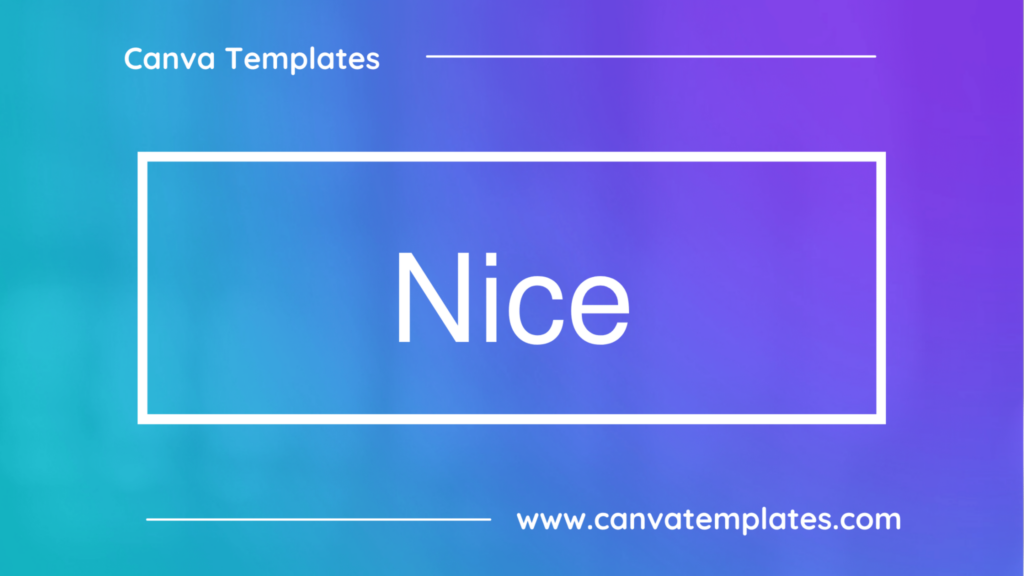
Nice is a simple and modern sans-serif font that’s clean and easy to read. It’s versatile enough to be used for a variety of projects, and its minimalist style makes it a great choice for a wide range of designs.
2. Holiday
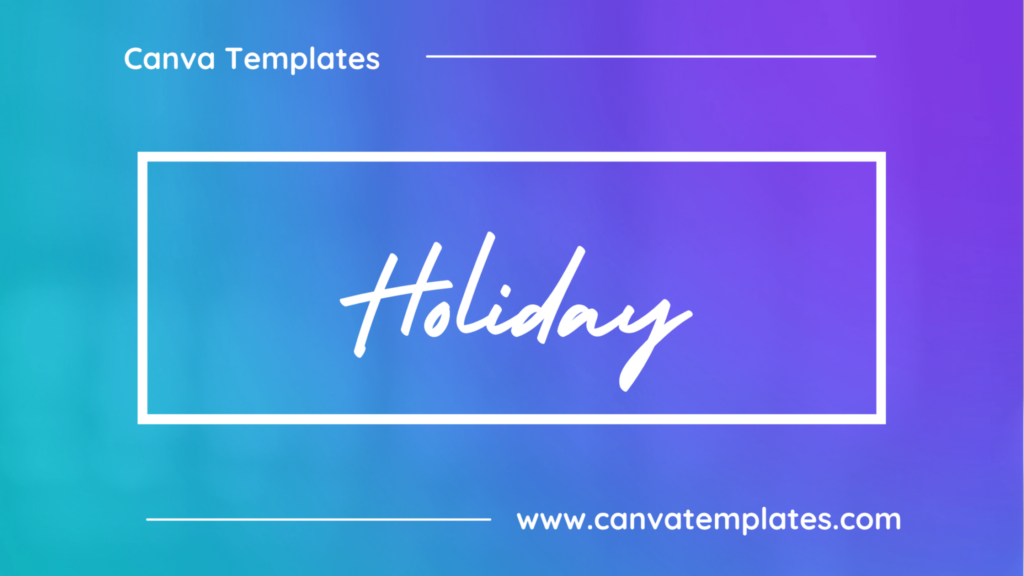
Holiday is a festive and playful font that’s perfect for adding a touch of cheer to any design. It features a bold, rounded style and lively curves that create a sense of joy and celebration.
3. Blanka
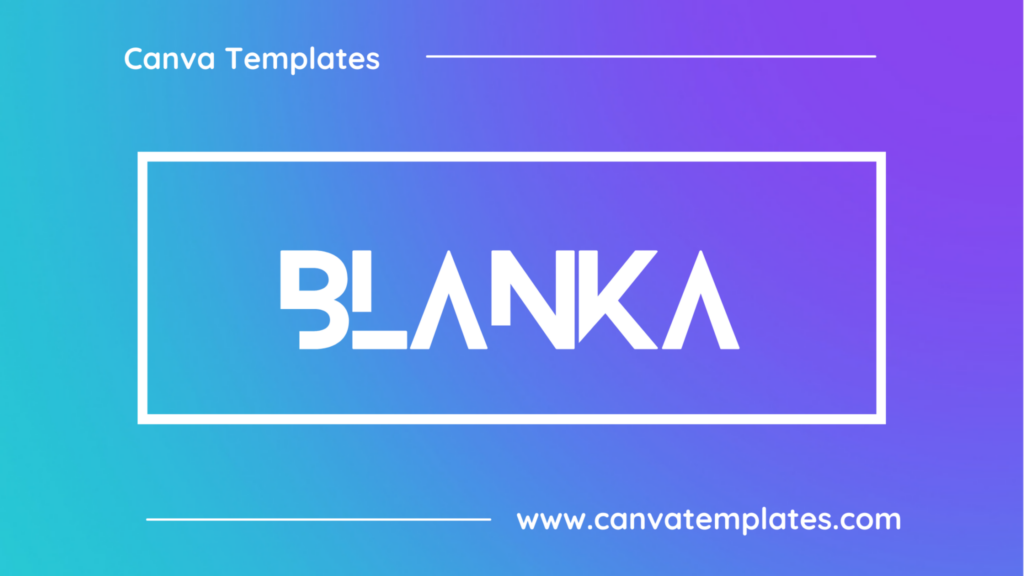
Blanka is a clean and modern sans-serif font with a distinctive geometric design. It features a tall and narrow appearance, making it a great choice for designs that need to convey a sense of sophistication or professionalism.
4. Dream Avenue
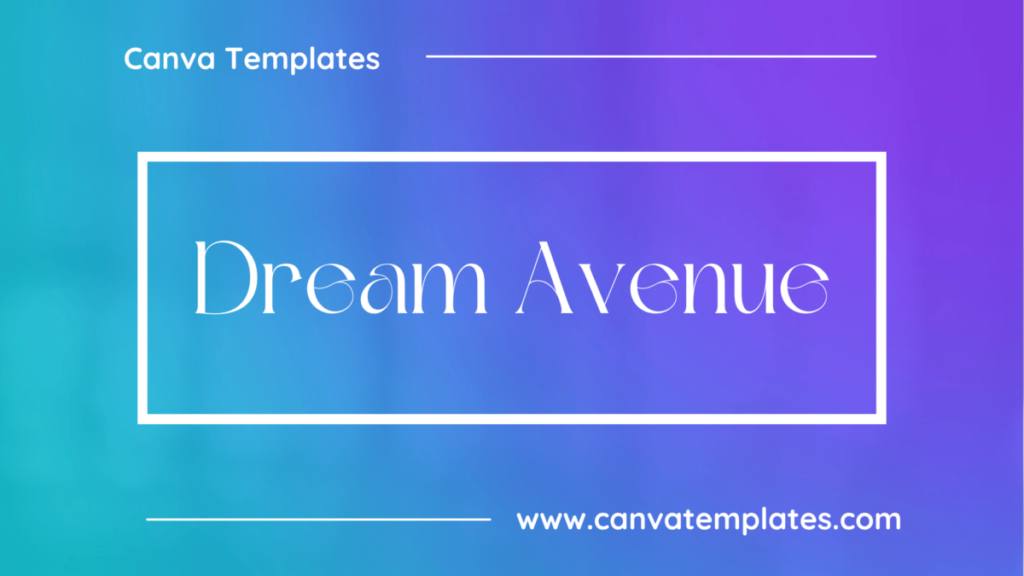
Dream Avenue is a delicate, script font with elegant, flowing curves and a romantic, dreamy feel.
5. Pecita
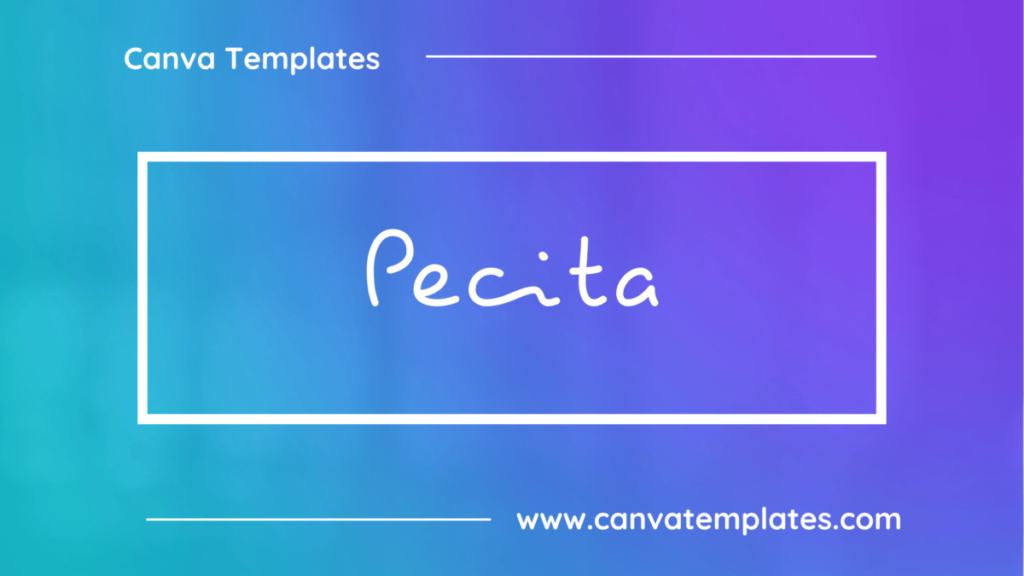
Pecita is a bold and modern sans-serif font that is great for designs that require a clean and minimalist look. It is often used in tech-related designs or in branding for companies that want to convey a sense of innovation and modernity.
6. Monoton
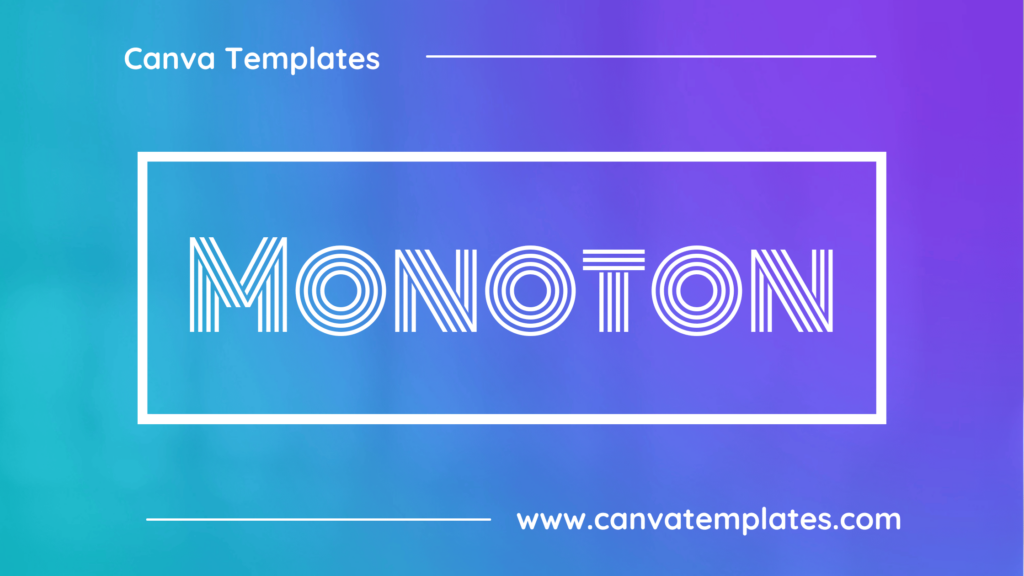
Monoton is a bold, condensed font that has a retro, 80s-style design. It has a high contrast and a strong presence, making it a popular choice for creating impactful headlines and titles. Monoton is often used in advertising and posters.
7. Nexa
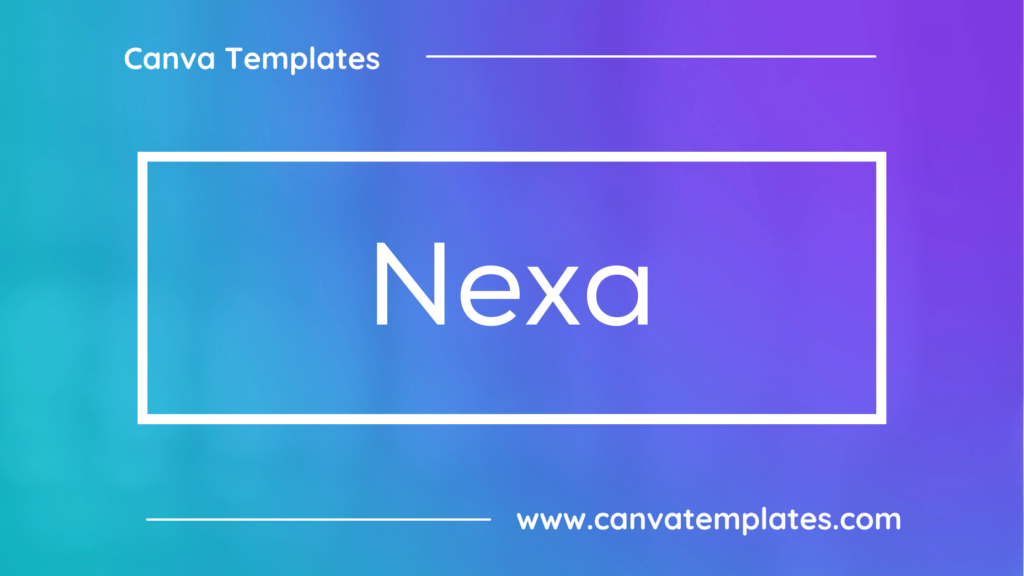
Nexa is a contemporary and geometric sans-serif font family that offers excellent legibility. With its clean lines and well-balanced proportions, Nexa is suitable for various applications, including branding, web design, and editorial content.
8. Just Believe
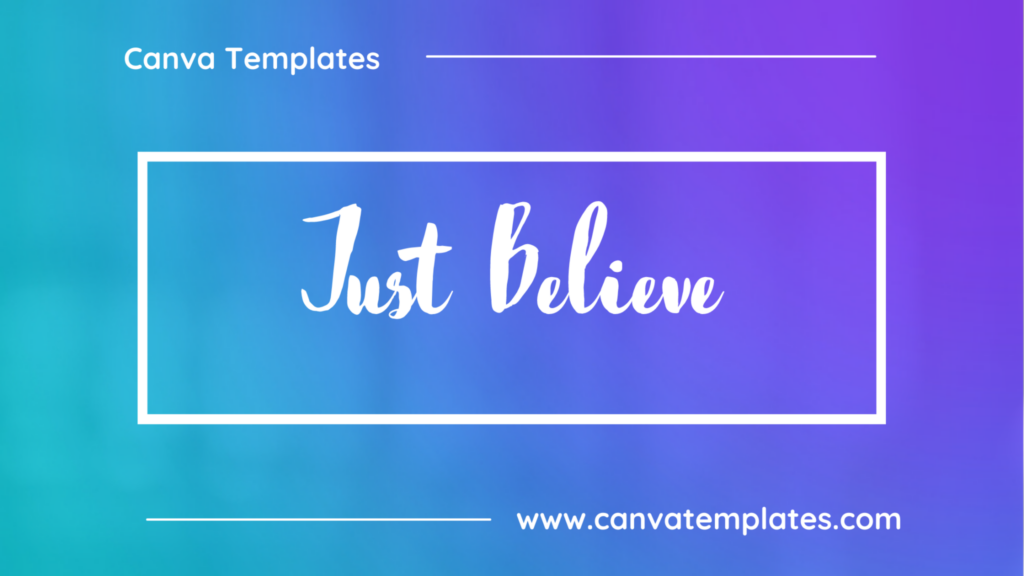
Just Believe is a whimsical, hand-drawn script font with a casual and friendly vibe. Its organic lines and irregular shapes make it ideal for projects that require a more informal touch, such as greeting cards, invitations, or logos.
9. Rogue
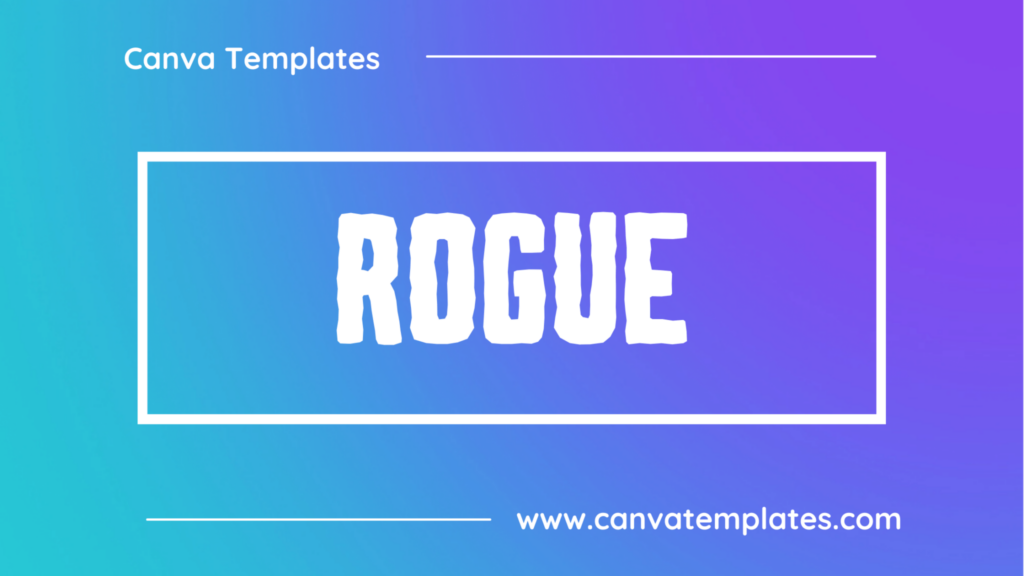
Rogue is a bold and aggressive display font characterized by its sharp, pointed edges and angular design. This daring and rebellious typeface is suitable for projects that require a strong, edgy feel, such as logos, apparel, or posters.
10. SK Concretica
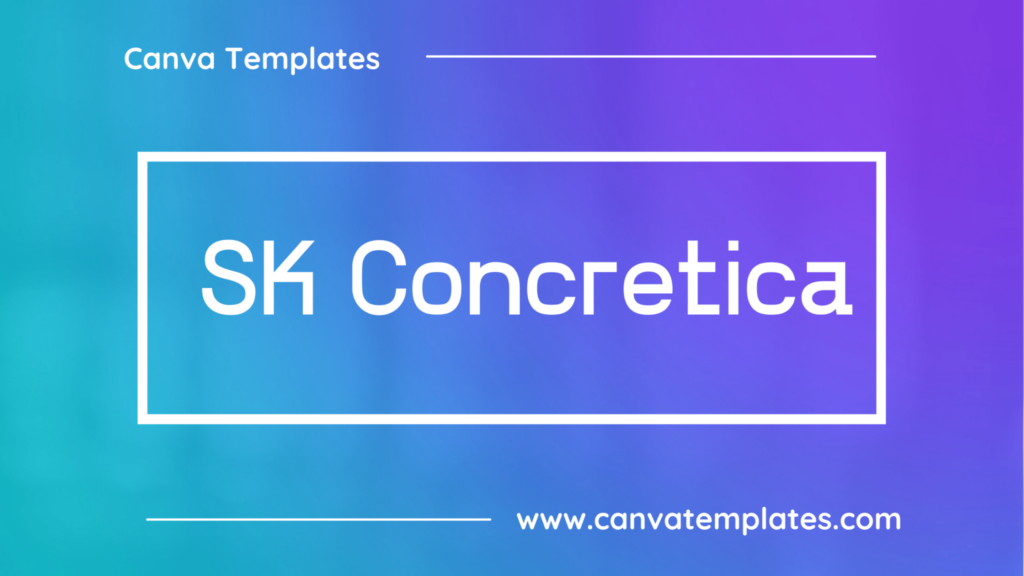
SK Concretica is a modern and edgy font that’s great for creating designs that need a bold and industrial feel. Its sharp lines and geometric style give it a sleek and modern look, while its simple design makes it easy to read.
11. Rustic Printed Stamp
Rustic Printed Stamp is a decorative font that mimics the look of old printing presses, featuring a distressed texture and irregular lines. It evokes a vintage and handmade feel, ideal for projects that require a rustic or artisanal aesthetic.
12. Komsomol
Komsomol is a bold, Cyrillic typeface with a distinct and artistic appearance. Its unique character shapes and stylistic features make it perfect for projects requiring a creative, unconventional touch, such as posters, logos, or packaging.
13. 29LT Makina
29LT Makina is a distinctive, mechanical-inspired display font that features a combination of industrial and geometric design elements. Its unique and bold appearance makes it an excellent choice for headlines, posters, or branding projects that require a strong visual impact.
14. IBM Plex Mono
IBM Plex Mono is a monospaced font developed by IBM that is intended to be easy to read and suitable for both display and body text. It has a modern look and includes a wide range of characters, including Cyrillic and Greek.
15. Ovo
Ovo is a bold, modern sans-serif font with clean lines and a slightly rounded, friendly feel.
16. High Tide Geometric
High Tide Geometric is a modern, geometric sans-serif font with clean lines and sharp angles. Its contemporary design makes it well-suited for technology, design, or architectural projects, such as logos, websites, or marketing materials.
17. Moonshine
Moonshine is a bold and distinctive display font with a vintage, Western-inspired aesthetic. Its strong, angular design makes it ideal for projects that require an old-fashioned or rustic feel, such as posters, signage, or logos.
18. Sinclaire
Sinclaire is an elegant and sophisticated script font with smooth, flowing curves and a classic, refined appearance. It’s perfect for projects that require a touch of luxury, such as wedding invitations, branding, or packaging.
19. Abys
Abys is a display font with a bold weight and a futuristic design, featuring clean lines and sharp angles. Its modern and sleek appearance makes it a popular choice for branding and digital design.
20. Obra Letra
Obra Letra is a display font with a retro, vintage style. It has a bold, uppercase-only design with thick strokes and serifs that create a sense of nostalgia and old-school charm.
21. Zag Thin Drops
Zag Thin Drops is a modern and elegant sans-serif font with a thin and delicate design. Its geometric shapes give it a contemporary feel, while its thin strokes make it highly legible and easy to read. It’s a great choice for creating clean and sophisticated designs, especially in fashion or editorial projects.
22. Cinzel Decorative
Cinzel Decorative is a bold, decorative font with elaborate serifs and a classic, ornate look, resembling ancient Roman inscriptions.
23. Fibre
Fibre is a sans-serif font with a condensed and bold design, featuring wide spacing and rounded shapes. Its modern and dynamic appearance makes it a great choice for titles, logos, and branding.
24. Alta
Alta is a clean, modern sans-serif font with simple, geometric shapes and a minimalist look.
25. Lava Pro Grunge
Lava Pro Grunge is a grunge-style font with a bold weight and a textured appearance, resembling lava or molten metal. Its rugged and edgy feel makes it a great choice for designs that require a bold and adventurous touch.
26. Giaza
Giaza Serif Typeface is an elegant Didone typeface, most suitable as a Display font, the main focus was to include as many indulgent aspects as possible, and really make use of its high-contrast aesthetic. With smooth curves and subtle indentations, it’s a very Fashion-conscious typeface.
27. Rye
Rye is a serif font with a classic and elegant design, featuring thin, high-contrast strokes and sharp serifs. Its timeless appearance makes it a versatile choice for both digital and print applications, such as editorial design or branding.
28. Meteoritika
Meteoritika is a futuristic and sci-fi inspired font that’s perfect for creating designs that need a high-tech or futuristic look. Its sleek and geometric style gives it a modern and cutting-edge feel.
29. Glassure
Glassure is a sleek, modern sans-serif font with clean lines and a slightly futuristic feel, resembling the look of glass.
30. Bugaki
Bugaki is a decorative font with a unique and whimsical design, featuring irregular lines and playful shapes. Its charming appearance makes it a great choice for designs that require a fun and creative touch, such as invitations or children’s books.
31. Special Elite
Special Elite is a vintage-inspired typewriter font that features slightly distressed, uneven characters and a rough texture. It’s perfect for projects that require a retro or nostalgic feel, such as posters, stationery, or book covers.
32. Beach Resort
Beach Resort is a playful and relaxed font that’s perfect for conveying a fun and carefree vibe. It features rounded edges and a slightly irregular style that gives it a handmade feel.
33. Aleo
Aleo is a bold, industrial-style font with thick lines and a rugged, vintage feel.
34. Permanent Marker
Permanent Marker is a handwriting-style font with a bold weight and a casual appearance, resembling a marker or pen stroke. Its informal and playful feel makes it a great choice for designs that require a personal or friendly touch.
35. Intro Pro Bold
Intro Pro Bold is a display font with a bold weight and a distinctive design, featuring a combination of modern and vintage elements. Its bold appearance makes it ideal for titles, headlines, and branding.
36. Walls Rough
Walls Rough is a decorative font with a distressed texture and irregular lines, inspired by graffiti and street art. Its raw and urban appearance makes it ideal for designs that require a bold and edgy look, such as album covers or posters.
37. Prague
Prague is an elegant, decorative serif font that features intricate details and ornate embellishments. Its sophisticated and romantic appearance makes it ideal for wedding invitations, packaging, or branding.
38. Waterlily
Waterlily is a calligraphy-style font that’s feminine and delicate, with thin, flowing lines and elegant curves. It’s ideal for creating romantic or whimsical designs, and adds a touch of sophistication to any project.
39. Versailles
Versailles is a fancy, ornate font with elaborate serifs and a classic, elegant look.
40. Celandine
Celandine is a calligraphic font with a delicate, ornate style. It features a flowing, script-like design with elegant curves and flourishes that give it a sense of beauty and grace.
41. Zuume Rough Bold
Zuume Rough Bold is a bold and rugged font with rough edges and a distressed texture, perfect for designs that need a strong and edgy look. Its hand-drawn appearance adds a personal touch and makes it a great choice for branding and packaging.
42. Sweet and Salty
Sweet and Salty is a playful, hand-drawn script font with a casual and friendly vibe. Its organic lines and irregular shapes make it ideal for projects that require a personal touch, such as greeting cards, invitations, or logos.
43. Kent Printed
Kent Printed is a serif font with a hand-printed look, featuring irregular lines and a vintage feel. Its warm and personal appearance makes it ideal for designs that require a human touch, such as invitations or packaging.
44. Jerin
Jerin is a bold, modern sans-serif font with clean lines and a slightly futuristic feel.
45. Comodo Stamp
Comodo Stamp is a display font with a textured and distressed look, inspired by rubber stamps and ink. Its handmade appearance makes it a great choice for designs that require a rustic or vintage feel, such as packaging or labels.
46. Lovelace Text
Lovelace Text is a playful, hand-drawn font with a whimsical feel, resembling handwritten notes.
47. Rabanera
Rabanera is a decorative font with a calligraphic feel and elaborate flourishes.
48. Greenth Grunge
Greenth Grunge is a grunge-style font with a bold weight and a distressed appearance, featuring irregular lines and rough edges. Its vintage feel makes it ideal for designs that require a rugged or worn-out look.
49. Yesteryear
Yesteryear is a vintage-style font that has a classic, retro design. It is a serif font that has a hand-drawn feel, giving it a unique and personal touch. The letters have a slightly distressed look, which adds to the vintage vibe of the font.
50. Cosmic Octo Heavy
Cosmic Octo Heavy is a bold, space-themed display font featuring thick, geometric shapes and a futuristic feel. It’s perfect for projects related to technology, science fiction, or gaming, such as logos, posters, or websites.
51. Kvant
Kvant is a modern, geometric sans-serif typeface that features clean lines and sharp angles. Its contemporary design makes it well-suited for technology, design, or architectural projects, such as logos, websites, or marketing materials.
52. Abang
Abang is a playful, hand-drawn script font with a casual and friendly vibe. Its organic lines and irregular shapes make it perfect for projects that require a personal touch, such as greeting cards, invitations, or logos.
53. Cristik
Cristik is a playful and energetic display font featuring bold, rounded shapes and a lively, dynamic feel. Its upbeat and friendly appearance makes it ideal for children’s products, logos, or marketing materials.
54. Neultica Dirty
Neultica Dirty is a grunge-style font with a bold weight and a distressed appearance, featuring irregular lines and a textured surface. Its rough and edgy feel makes it ideal for designs that require a rugged or worn-out look.
55. Muller Bold
Muller Bold is a geometric sans-serif font with a bold weight and a minimalistic design, characterized by simple shapes and clean lines. Its versatility and legibility make it suitable for both digital and print applications, such as branding or editorial design.
56. Awesome Lathusca
Awesome Lathusca is a unique and stylish serif font. Awesome Lathusca is well-suited for advertising, branding, logotypes, packaging, titles, headlines, and editorial design.
57. Zeky
Zeky is a modern, geometric sans-serif typeface that features sharp edges and clean lines. This minimalist font is perfect for technology or design-related projects, such as logos, websites, or marketing materials.
58. Sprite Graffiti Shaow
Sprite Graffiti Shadow is a graffiti-style font with a bold and edgy design. It features thick lines and exaggerated lettering, making it a great choice for designs with a rebellious or urban feel.
59. Intro Rust Bookbasel
Intro Rust Bookbasel is a display font that combines a modern sans-serif with a vintage serif, resulting in a distinctive and eye-catching design. Its bold and dynamic appearance makes it a great choice for titles, logos, and posters.
60. TAN Mon Cheri
TAN Mon Cheri is is an elegant sans serif font. The thin and minimalist strokes evoke a sense a of calm and harmony.
61. Mak
Mak is a bold and modern sans-serif font with a distinctive geometric design. It features clean lines and sharp angles, making it a great choice for minimalist designs or tech-related projects.
62. Over The Rainbow
Over The Rainbow is a decorative display font with a whimsical, hand-drawn style. It features irregular, uneven letterforms with a playful appearance. It is often used in designs that require a touch of fun and lightheartedness.
63. ITC American Typewriter
ITC American Typewriter is a classic, nostalgic font that replicates the appearance of vintage typewritten documents. With its even spacing and serif details, it’s perfect for projects that require an old-fashioned or retro feel, such as book covers, invitations, or stationery.
64. Tan Buster
Tan Buster is a decorative display font with a bold, playful style. It features chunky, blocky letterforms with an irregular, hand-drawn appearance. It is often used in designs that require a touch of whimsy and fun.
65. Magenta
Magenta is an interconnected font with beautiful welded letters. The font contains beautiful smooth and elegant letters and is great for creating cards such as wedding invitations and birthday cards but also can be used to create beautiful signs and decorate various items.
66. Habeba
Habeba is a decorative display font with a playful and whimsical design. Its rounded edges and bold lines make it a great choice for headlines and titles in children’s books or other creative projects.
67. Nagayama Kai
Nagayama Kai is a classic, elegant font that features a traditional Japanese calligraphy style. It’s great for use in designs with an Eastern or Asian theme.
68. Ghisella
Ghisella is a calligraphic script font that has a classic and elegant feel to it. It is great for formal invitations, wedding designs, and other upscale designs that require a touch of class.
69. Espa
Espa is a playful and whimsical font that is great for designs aimed at children or that require a fun and lighthearted feel. It has a hand-drawn quality to it and is often used in designs such as party invitations or greeting cards.
70. Signature
Signature (as the name suggests) is a font designed to look like a signature. It is typically used for branding or in designs that require a personal touch. It is a script font that is both bold and fluid.
71. Reesha
Reesha is a decorative font with a flowing, script-like design. It features elegant, cursive letterforms with looping curves and delicate, serpentine lines.
72. Mirza
Mirza is a serif typeface designed by Indian type designer, Shiva Nalleperumal. It is inspired by traditional Indian calligraphy and features distinctive ornamental details. The Mirza font family includes four weights: light, regular, semi-bold, and it supports multiple languages including Devanagari and Latin scripts. The letterforms in Mirza are elegant and sophisticated, with high contrast between the thick and thin strokes, and intricate details in the serifs. Mirza is a versatile typeface that can be used in a variety of applications, including editorial design, branding, and advertising.
73. Badger
Badger is a modern sans-serif font with a clean and simple design. It features rounded edges and a slightly condensed appearance, making it a great choice for a variety of design projects.
74. Vintage Edge
Vintage Edge is a vintage-style font that features a distressed, aged look. It’s great for use in designs with a retro or old-fashioned theme.
75. Monfem
Monfem is a calligraphic script font with a flowing, elegant style. It features graceful, sweeping lines and has a romantic, feminine feel. It is often used in designs that require a touch of sophistication and elegance.
76. The Breaks
The Breaks is a casual, handwritten-style font that features a laid-back, playful look. It’s great for use in designs with a relaxed or informal tone.
77. Weston
The Weston font is a new rounded slab-serif font designed by Pavel Pavlov for Fontfabric Type Foundry. The main purpose is to provide designers with a display font addition, suitable for modification in logos and headlines.
78. Metropolis
Metropolis is a geometric sans-serif font that was created by German designer Joschmi in 2013. It is inspired by the futuristic designs of the 1927 science fiction film of the same name and features a streamlined, Art Deco-inspired aesthetic.
79. AC Cyberella
AC Cyberella is a futuristic and tech-inspired font that is great for designs related to science fiction or technology. It has a sharp and angular look to it and is designed to look like letters that have been constructed from metal or other materials.
80. Blastine
Blastine is a decorative display font with a bold, playful style. It features chunky, blocky letterforms with an irregular, hand-drawn appearance. It is often used in designs that require a touch of whimsy and fun.
81. Mokoto Glitch 2
Mokoto Glitch 2 is a distorted and fragmented font with a glitch-style design. It’s perfect for creating experimental and futuristic designs, or for adding a creative and unconventional touch to any project. Its distorted shapes and fractured letterforms make it highly customizable, giving it a unique and personalized feel.
82. Robolt
Robolt is a futuristic display font with a geometric, angular design. It features thin, sharp lines and pointed corners, giving it a modern, high-tech look.
83. League Spartan
League Spartan is The League Of Moveable Type’s interpretation of Matt Bailey’s Spartan, a typeface based on early 20th-century American geometric sans serifs.
84. Reborn
Reborn is a bold and expressive display font with a distressed, hand-drawn style. It features uneven, jagged lines and a grungy, textured appearance that is perfect for designs with a rebellious, edgy feel.
85. Lovera
Lovera is a modern and stylish serif font with a clean, minimalist design. It features simple, geometric letterforms with a no-nonsense, business-like feel that is perfect for logos, headlines, and other graphic design projects.
86. Anca Coder
Anca Coder is a monospaced font that was specifically designed for use in software development. It has a clean, modern look and is designed to be easy to read at small sizes.
87. Vidaloka
Vidaloka is a Didone display typeface for headlines and short blocks of text. Because of its high contrast, it will work best from 16px and above.
88. Migaela
Migaela is a decorative display font with a playful and whimsical style. It features bold, chunky letterforms with rounded edges and a bubbly appearance. It is often used in designs that require a touch of fun and lightheartedness.
89. Merriweather
Merriweather is a versatile, classic font with traditional serifs and a timeless, elegant look.
90. Cerebri Bold
Cerebri Bold is a contemporary sans-serif font with a bold weight and a distinctive design, featuring elongated strokes and sharp angles. Its unique appearance makes it ideal for branding and editorial design.
91. Allepo
Allepo is a sans-serif font with a geometric and futuristic design, characterized by sharp angles and clean lines. Its modern appearance makes it a great choice for tech-related projects, such as apps or websites.
92. Open Dyslexic
Open Dyslexic is a sans-serif font designed to make reading easier for people with dyslexia. It features unique letter shapes with heavy bottoms to help anchor the letters and make them easier to recognize.
93. Arcade Gamer
Arcade Gamer is a pixelated, bitmap font that is reminiscent of the type of fonts used in old arcade games. It has a retro, 8-bit style that can add a nostalgic feel to designs or projects that reference classic video games. The font typically features blocky characters with a limited number of pixels, giving it a distinct and recognizable look.
94. Eyesome Script
Eyesome Script is a calligraphic script font with a flowing, elegant style. It features graceful, sweeping lines and has a romantic, feminine feel. It is often used in designs that require a touch of sophistication and elegance.
95. Benedict
Benedict is a font that is a modern take on a classic serif font. It is sleek and sophisticated and is often used in high-end designs such as fashion magazines or luxury branding.
96. Rugrats
Rugrats is a playful and informal script font with a bouncy, handwritten style. It features a mix of thick and thin strokes and has a slight slant to its letterforms, giving it a dynamic and energetic feel.
97. Dreaming Outloud Sans
Dreaming Outloud Sans is a clean and modern sans-serif font with a slightly whimsical and playful design. Its versatile and contemporary appearance makes it suitable for a wide range of applications, including branding, web design, and editorial content.
98. Lot
Lot is a sans-serif font with a modern and minimalist design, featuring a bold weight that adds emphasis and impact to the text. Its versatility and legibility make it a popular choice for web design and branding.
99. Nectarine
Nectarine is a playful and informal script font with a bouncy, handwritten style. It features a mix of thick and thin strokes and has a slight slant to its letterforms, giving it a dynamic and energetic feel.
100. Foda Display
Foda Display is a bold and condensed font with an industrial feel. Its blocky shapes and narrow spacing make it highly impactful, making it a great choice for creating attention-grabbing headlines, posters, and signage